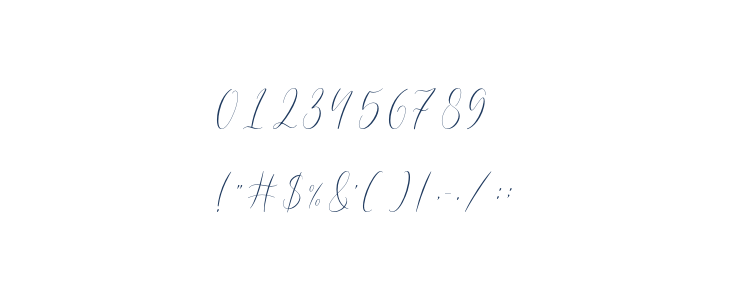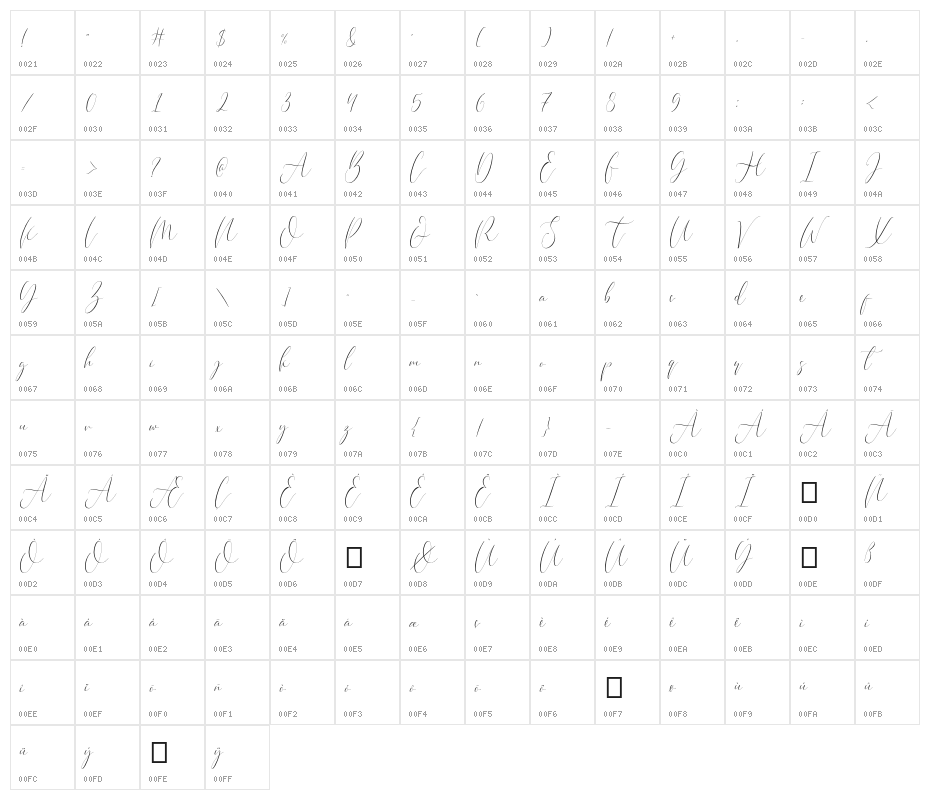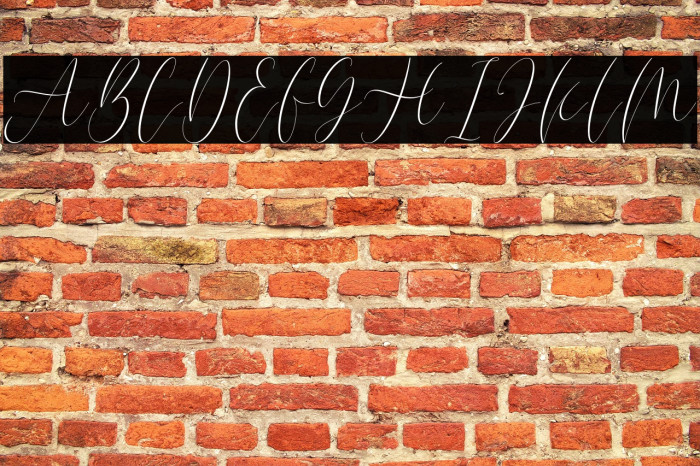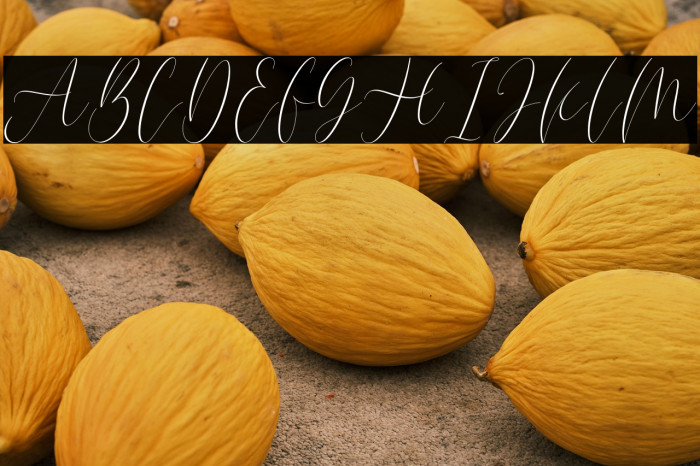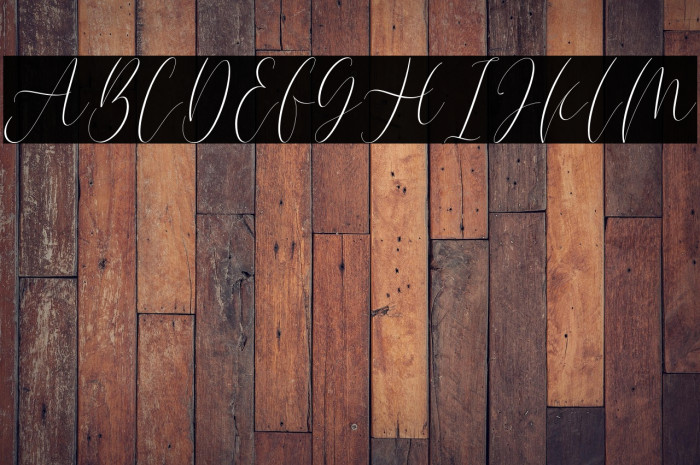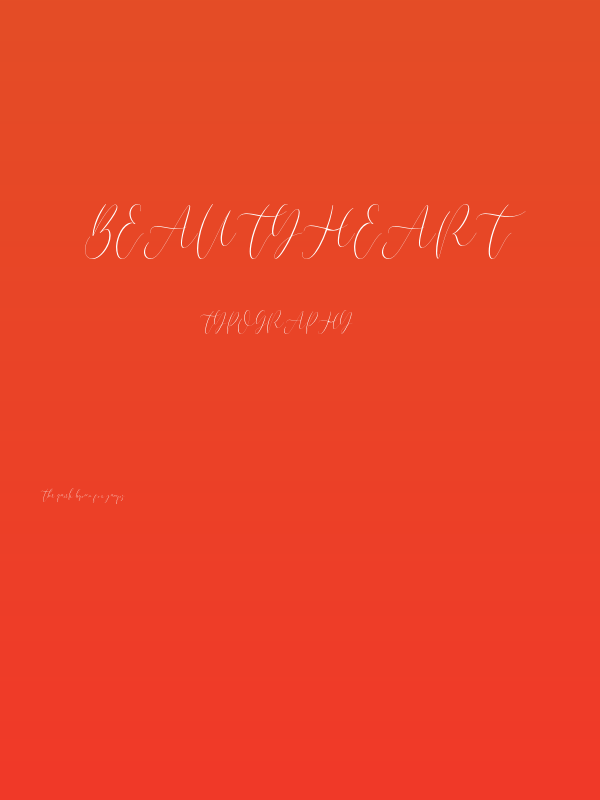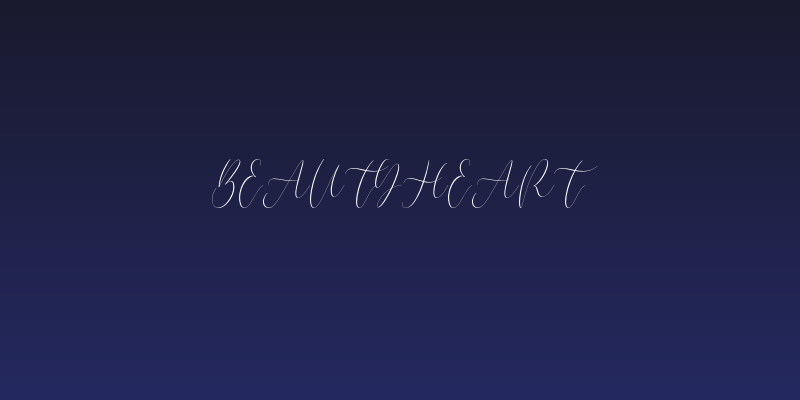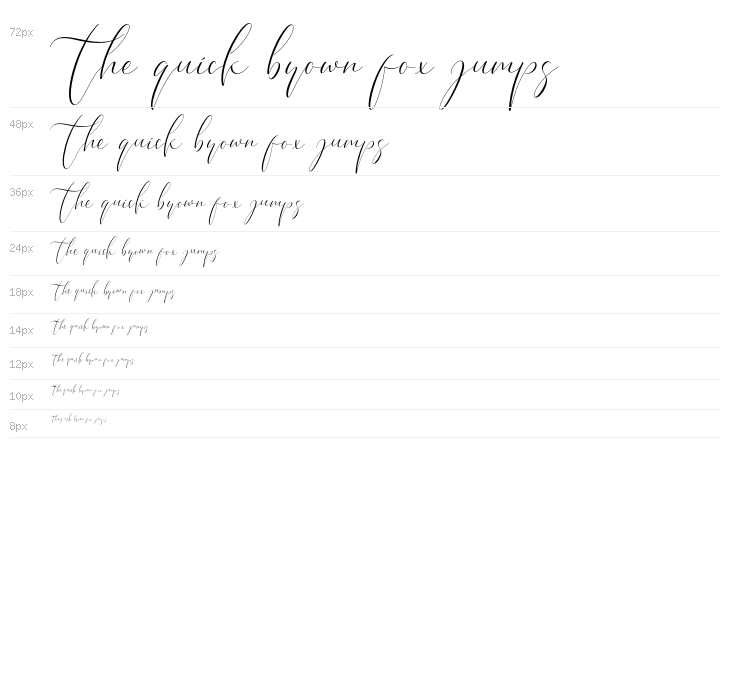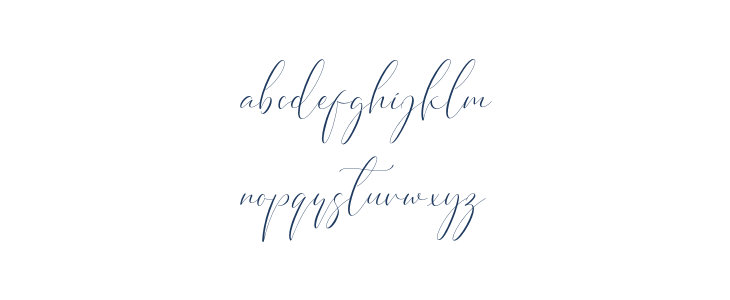
BeautyHeart Font
BeautyHeart Description
This elegant script font features a delicate and flowing design, characterized by its graceful curves and smooth connections between letters. The uppercase letters exhibit a sophisticated flair with extended strokes, while the lowercase letters maintain a consistent fluidity, enhancing readability. The numerals are crafted with the same attention to detail, offering a harmonious blend with the alphabet. Special characters are seamlessly integrated, maintaining the font's overall aesthetic. This font exudes a sense of elegance and refinement, making it ideal for projects that require a touch of sophistication.
| Proposed Projects | Wedding invitations, elegant branding, luxury product packaging, personalized stationery. |